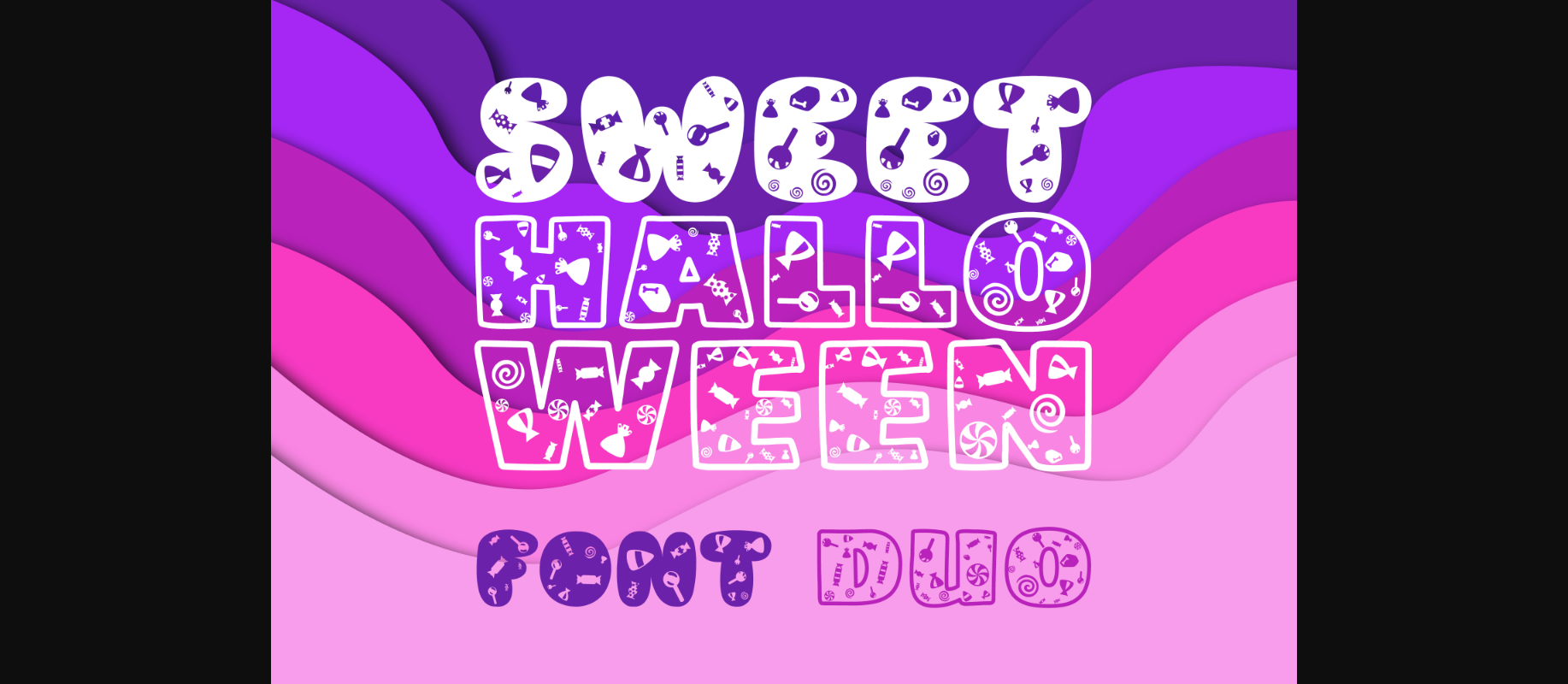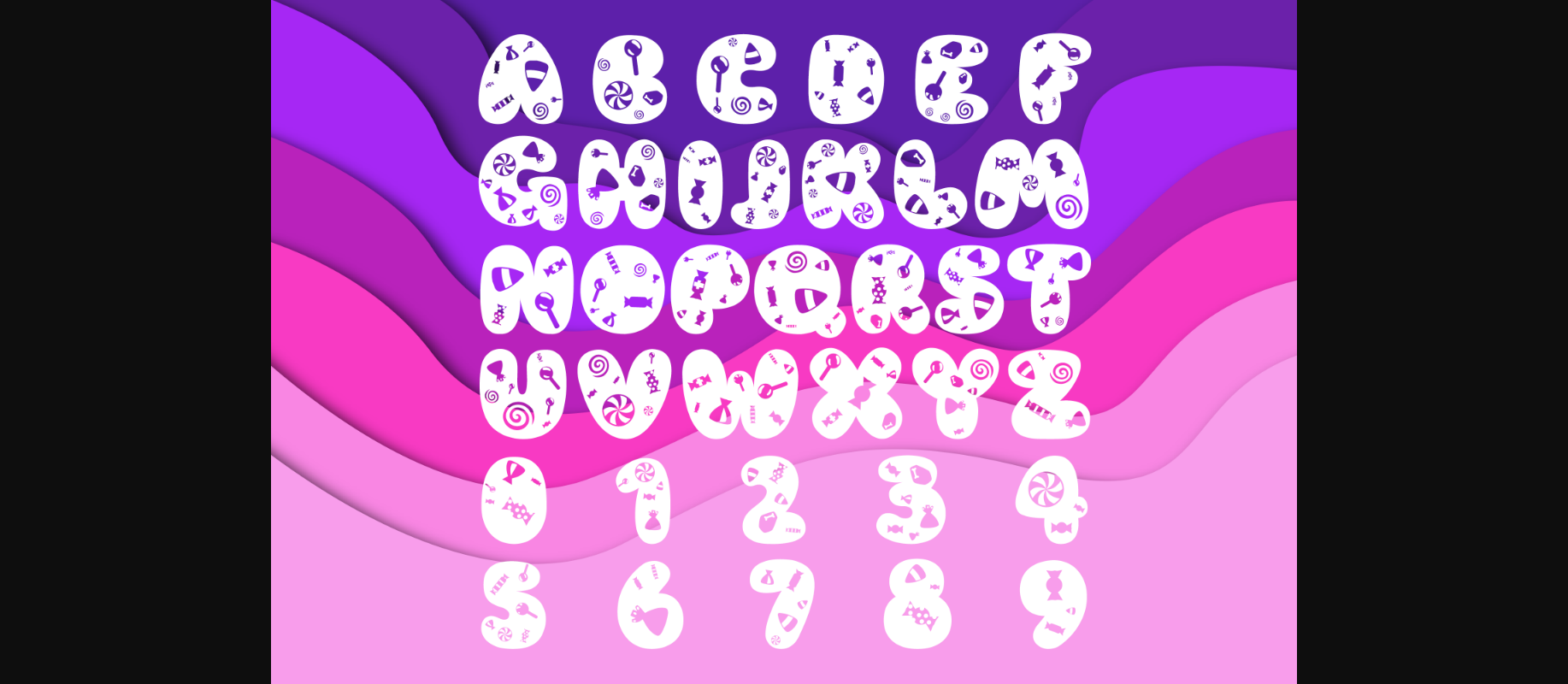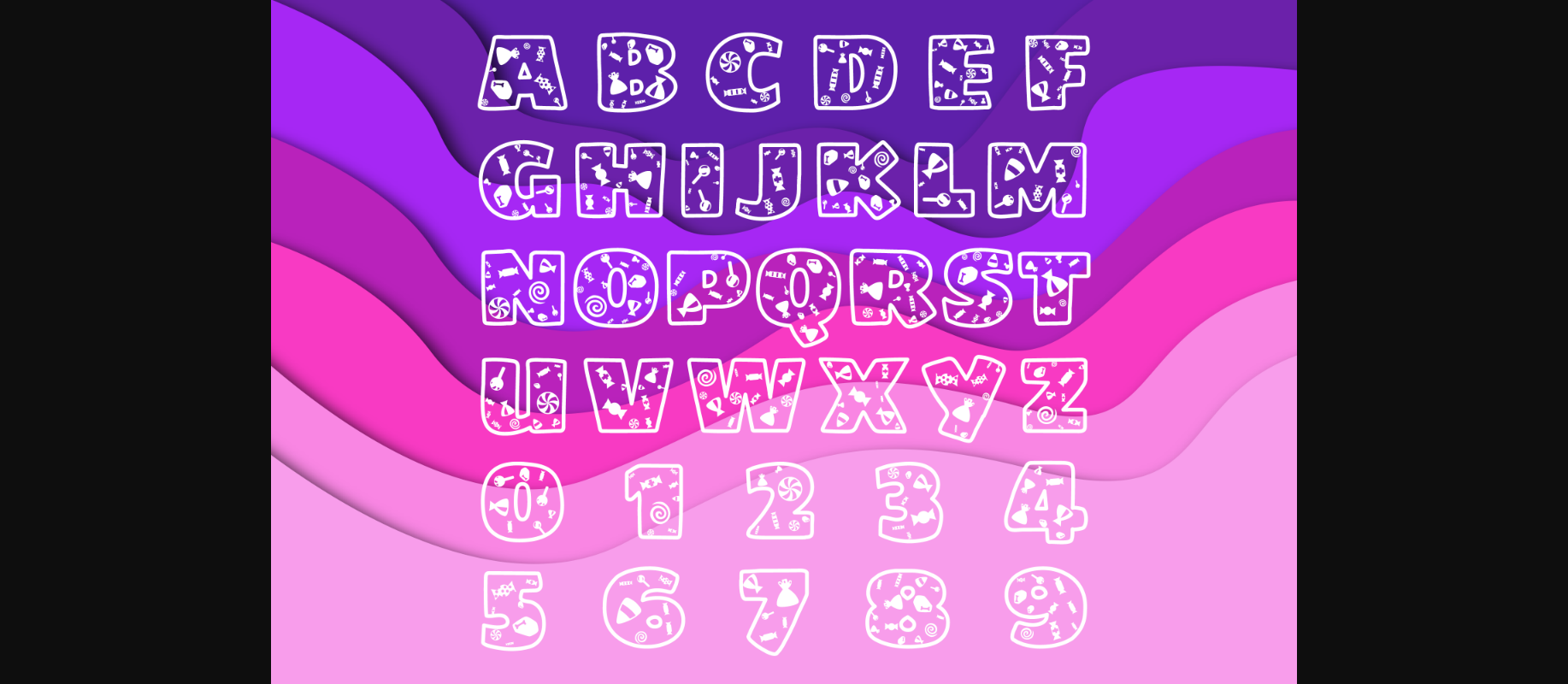
HomeDecorative FontsSweet Halloween Duo Font Decorative Fonts Sweet Halloween Duo Font FacebookXPinterestWhatsApp 1 of 5 ... Sweet Halloween Duo Font Poster 2... Sweet Halloween Duo Font Poster 3... Sweet Halloween Duo Font Poster 4... Sweet Halloween Duo Font Poster 5... About Sweet Halloween Duo Font Sweet Halloween is a marvelous decorative font that looks friendly and fun! Use it for cartoon-related projects, children’s games, storybooks, or any project that requires playful typography! DOWNLOAD NOW People also explored Ditsa Calista Font Yellow Pen Script Font Planeto Font Metic Font Coconut Font Sweety Font Alpha Niner Single Font Nattasha Font 277 0 TagsSweet Halloween Duo Font Previous articleNo Rules FontNext articleNautical Font LEAVE A REPLY Cancel reply Comment: Please enter your comment! Name:* Please enter your name here Email:* You have entered an incorrect email address! Please enter your email address here Website: Save my name, email, and website in this browser for the next time I comment. Personal Use Free Droid Personal Use Free Read more about this font Hunters Personal Use Free Read more about this font Waverly Date Personal Use Free Read more about this font Adelfa Personal Use Free Read more about this font BLOG Free Fonts Risk: Why Free Fonts Can Be Dangerous for Designers Free Fonts Risk: Why Free Fonts Can Be Dangerous for Designers Using free fonts is a common practice in web and graphic design. However, the... Modern Sans-Serif Fonts That Brands Love in 2025 Top 10 Handwritten Fonts That Elevate Your Designs How to Install and Use Fonts on Windows, macOS, and Web Projects